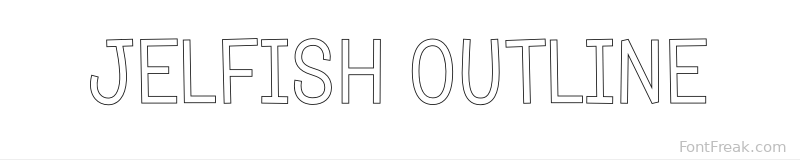
Jelfish Outline
Jelfish
Jelfish Outline is a striking display font designed by Mukhlis Muhammad in 2020, categorized under decorative typefaces. This font features a unique outline style that creates a bold yet playful aesthetic, making it ideal for eye-catching designs. The strokes are uniform in weight, providing a clean and modern look while maintaining a sense of personality. The lack of fill allows for versatility in use, enabling designers to play with colors and backgrounds for a customized effect.
Visually, Jelfish Outline stands out with its geometric forms and rounded edges, which contribute to its friendly and approachable character. The spacing between letters is carefully considered, ensuring legibility while enhancing the overall harmony of the text. This font's design includes subtle decorative elements that add a layer of creativity without overwhelming the viewer, making it a perfect choice for various projects.
Best suited for use cases such as wedding invitations, where its whimsical nature can evoke joy, or movie posters that require a bold statement, Jelfish Outline can also elevate restaurant menus, giving them a modern twist. Additionally, graphic designers and content creators will find this font particularly appealing for branding projects, promotional materials, or social media graphics.
The target audience for Jelfish Outline includes graphic designers, small business owners, and content creators looking to add a unique touch to their visual communication. This font not only serves functional purposes but also enhances the overall aesthetic of a project.